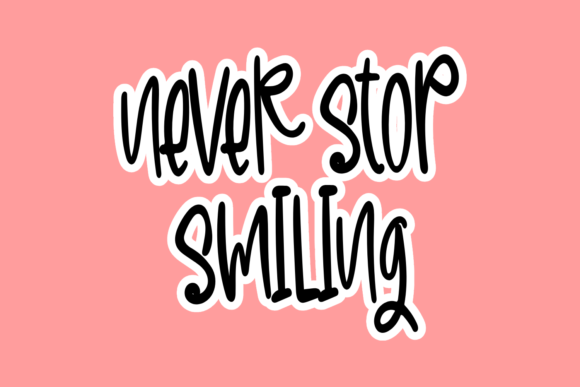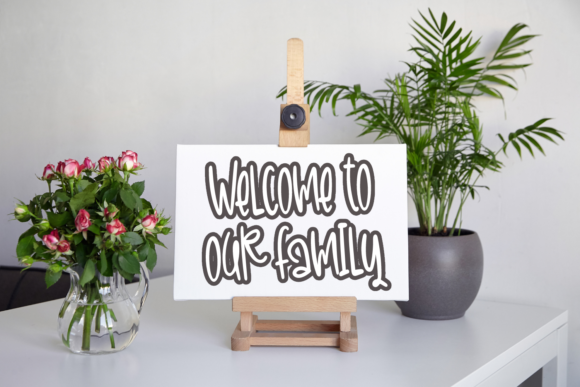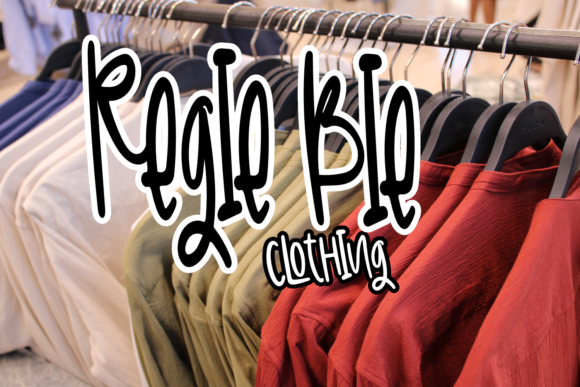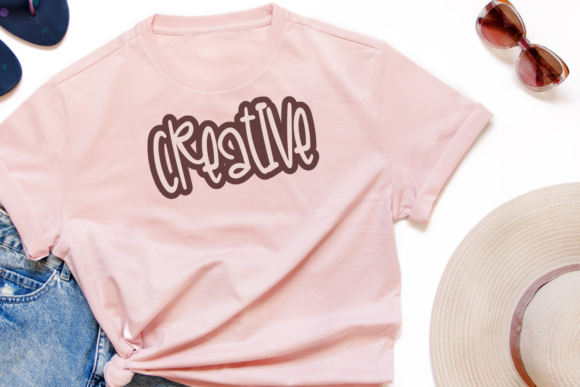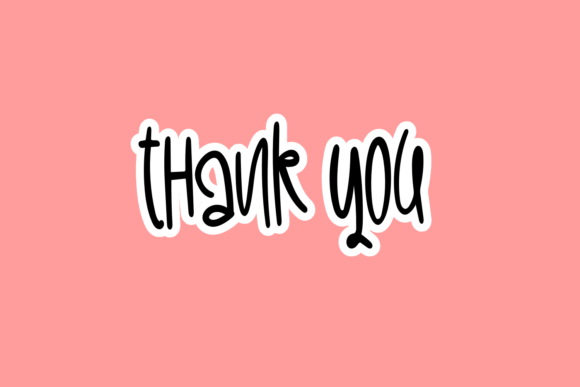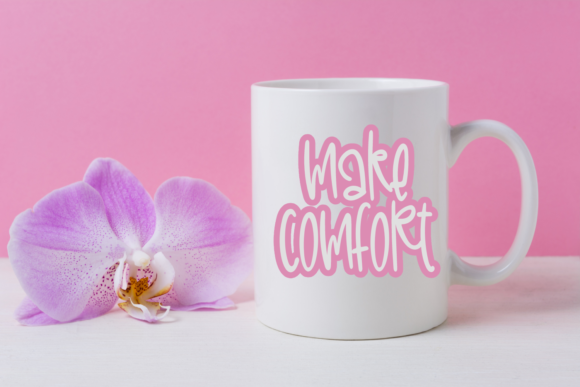
Rayya and Ayla Font
About Rayya and Ayla Font
Rayya And Ayla is a unique handwritten font. A little bit quirky, this font looks incredibly adept on a wide variety of contexts!